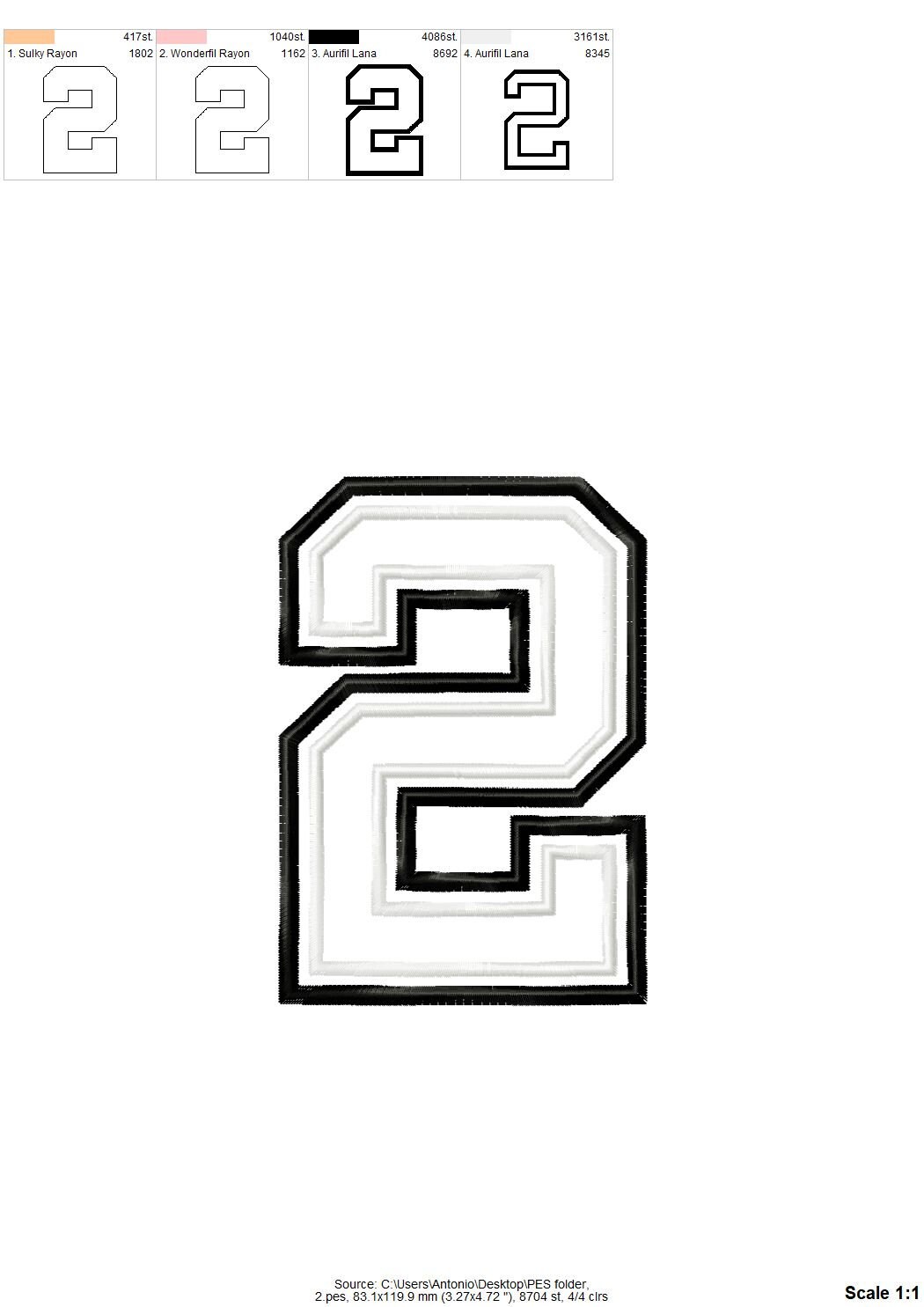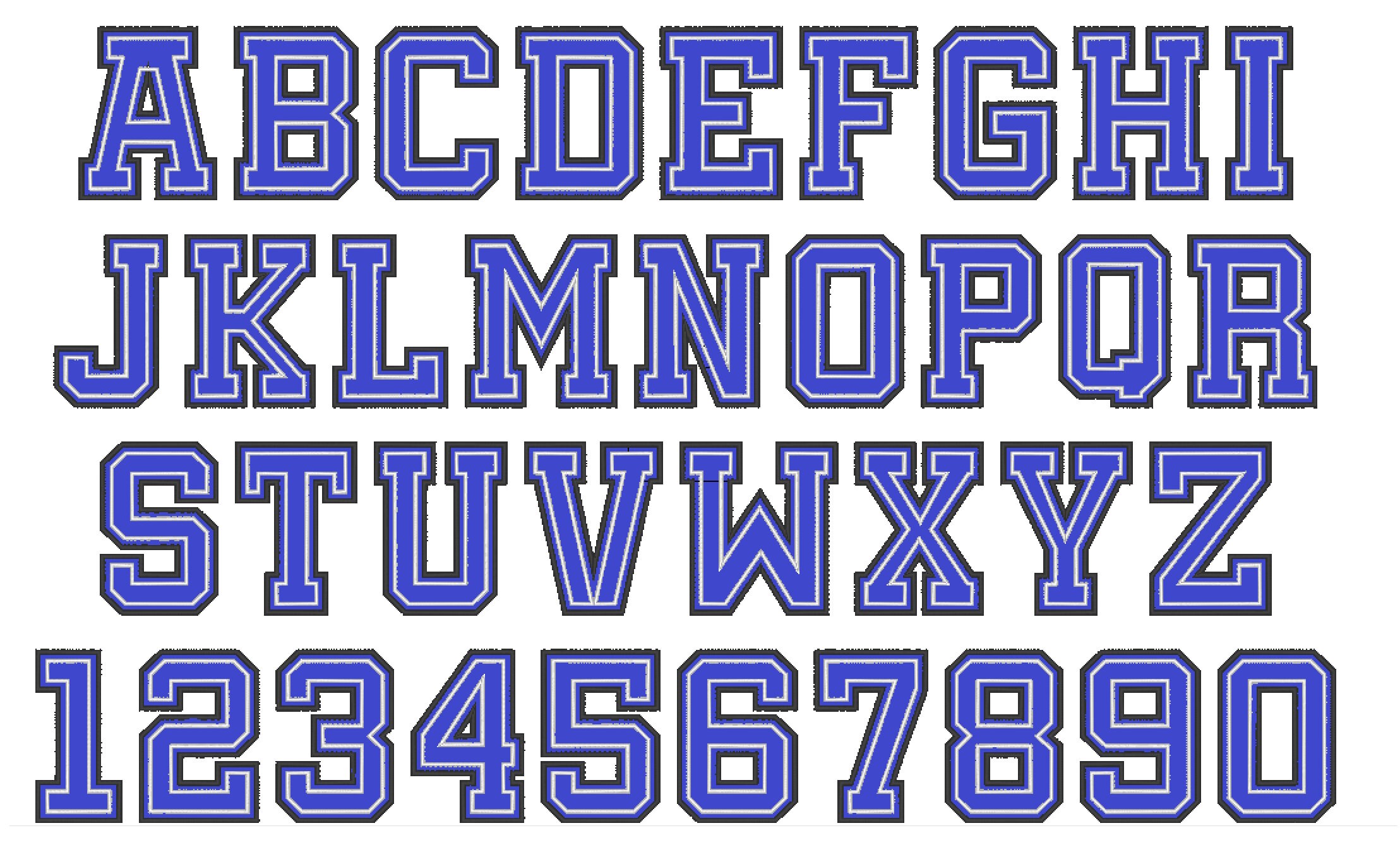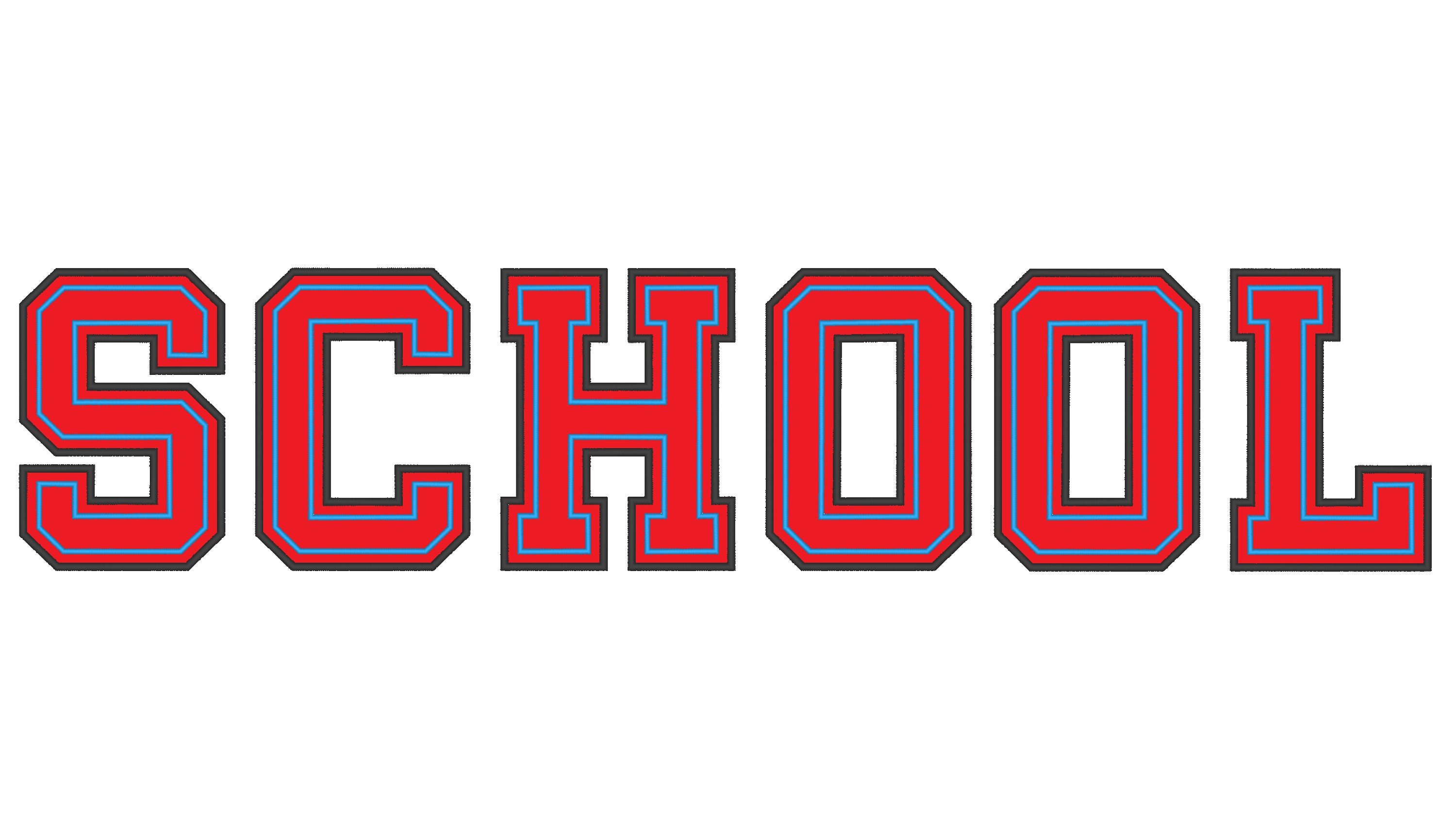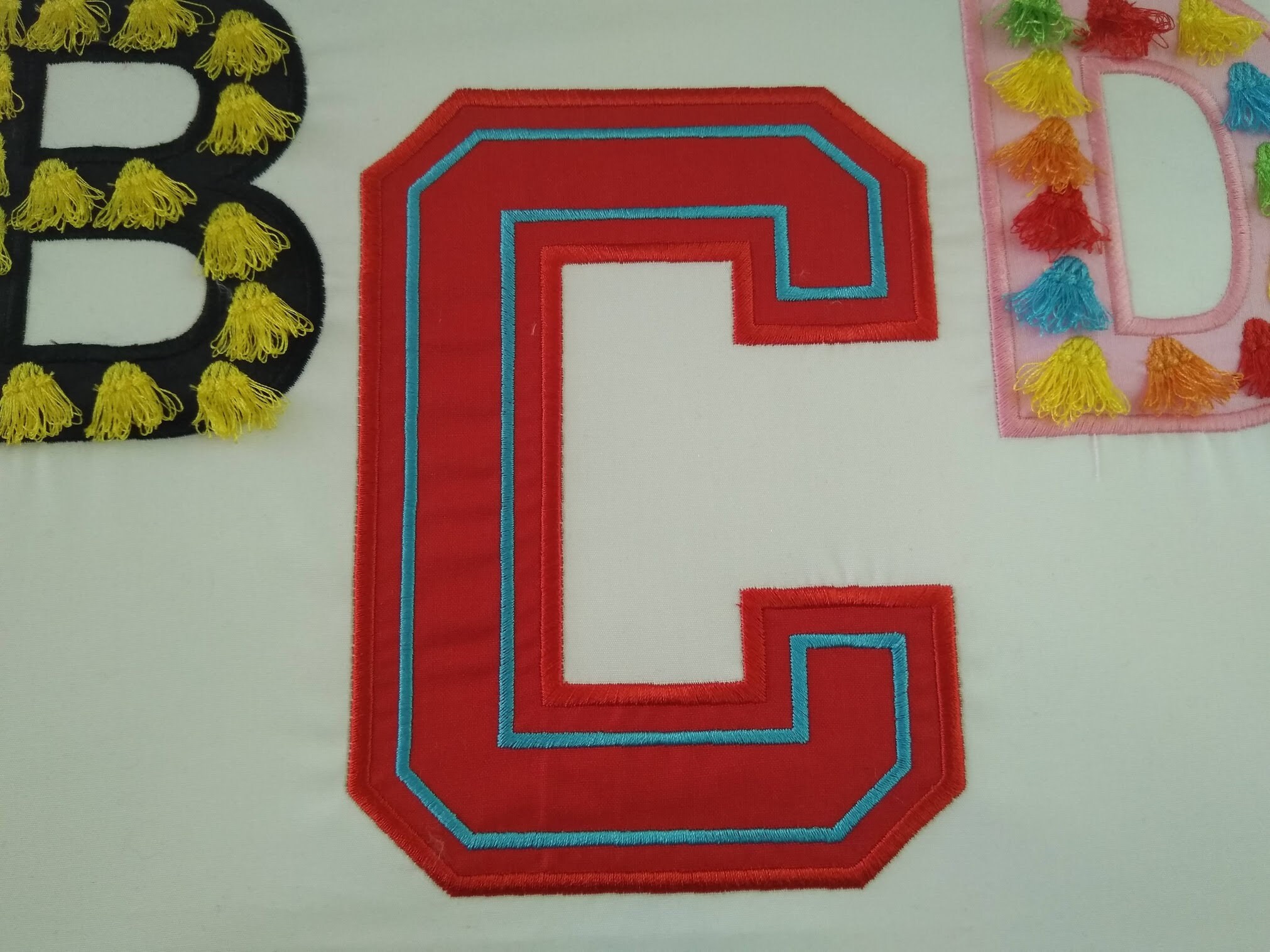
This font is one step an applique, decorated with an inner outline inside the letter.
There are color changes:
1. Main background bigger letter applique placement and tack-down seams
2. Satin stitch applique
3. The whole inner letter outline